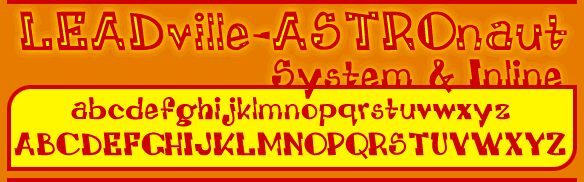
LEADville ASTROnaut System by Matt Chisholm is a free cartoon display font with an unruly, cut-paper silhouette. Its broad letters lurch between sharp wedges, blunt slabs, and narrow joins. Tilted edges and changing widths make the lettering look hand-built.
A skate shop or record label could use it for a deliberately scrappy brand identity. It also fits concert posters, comic publishing, and offbeat merchandise. There, the jagged letterforms can become part of the artwork instead of serving as neutral type.